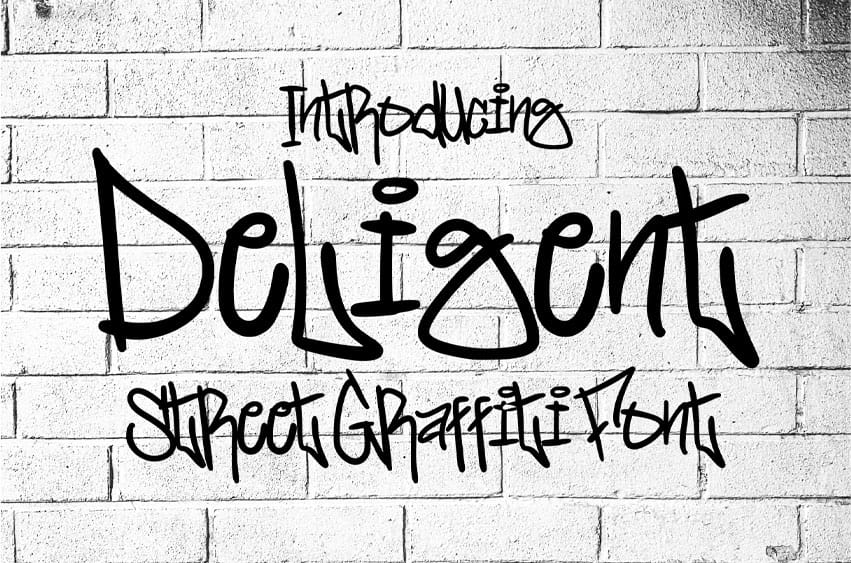
Deligent Font: Dive into the world of contemporary design with Deligent Graffiti Font, a stylish Graffiti font that exudes a sleek, sophisticated vibe.
With its seamless strokes and modern aesthetics, Deligent Graffiti Font is the perfect choice for design projects that require a touch of minimalism and elegance.